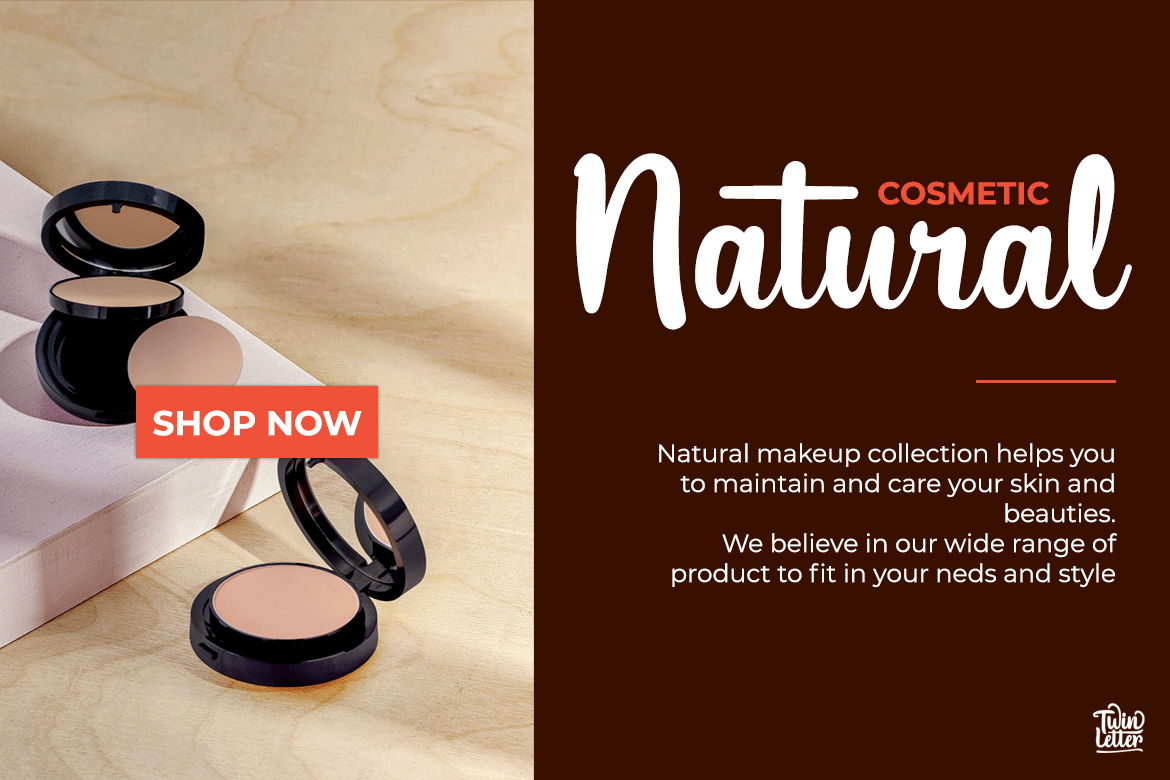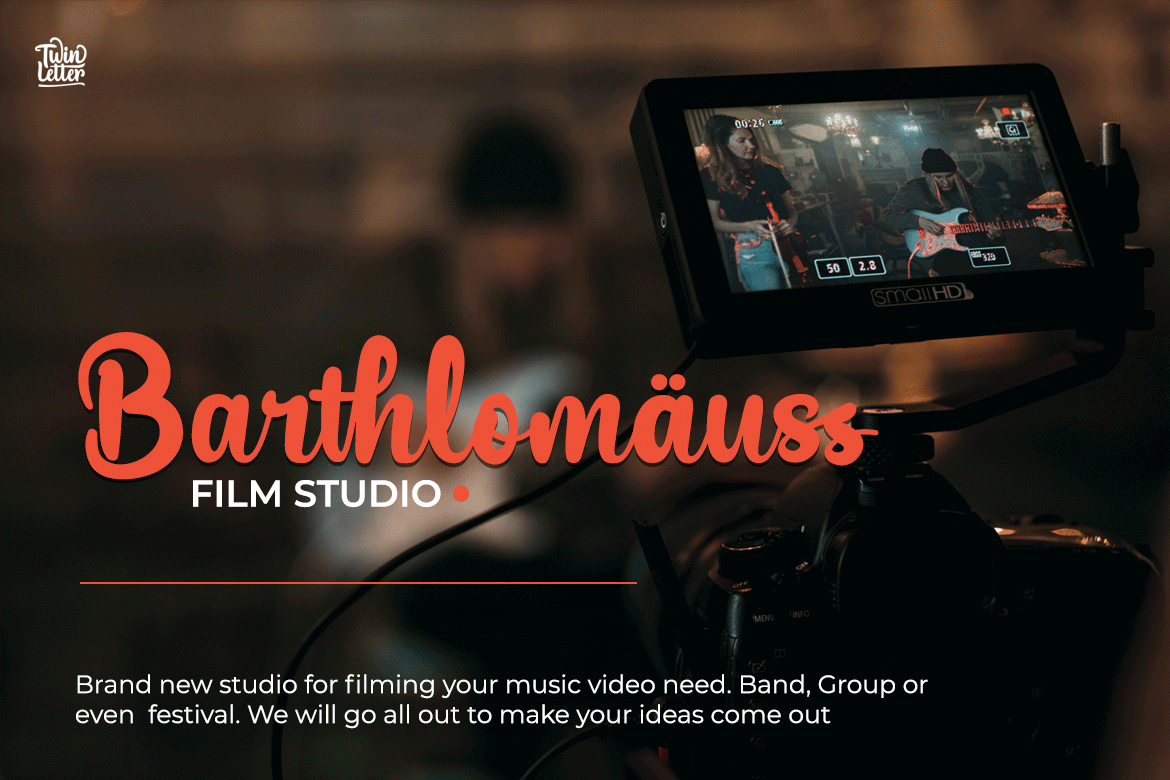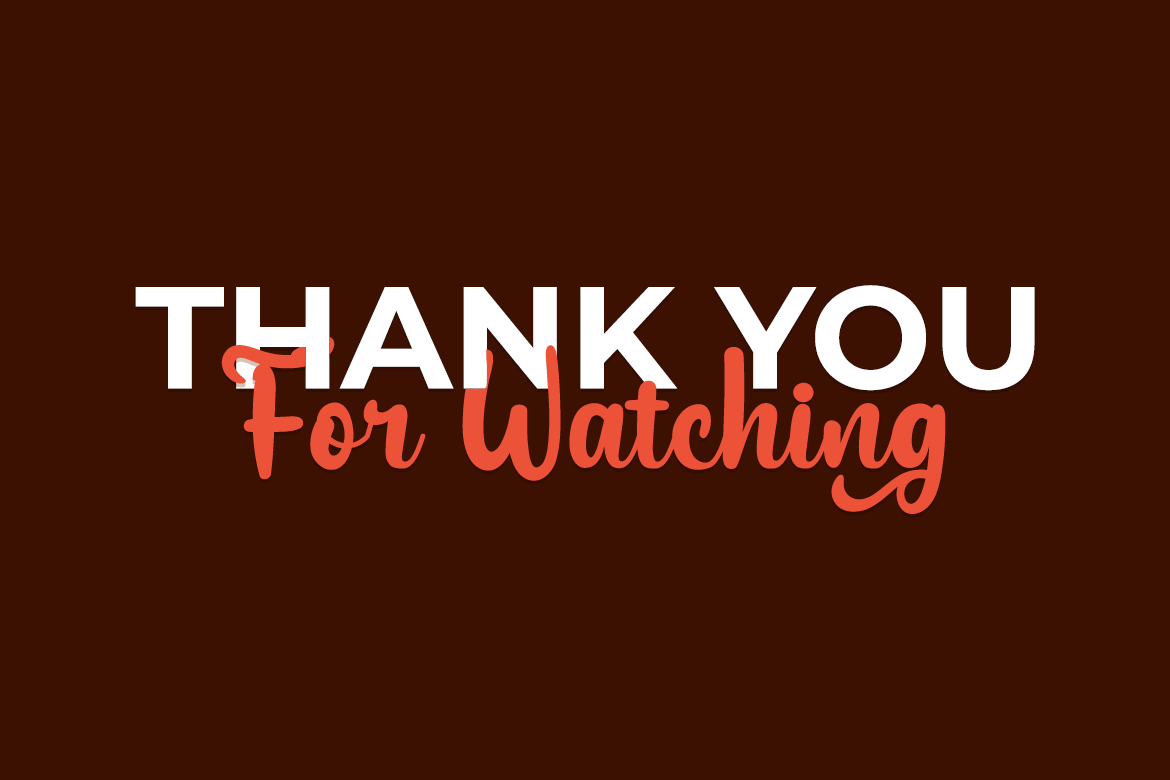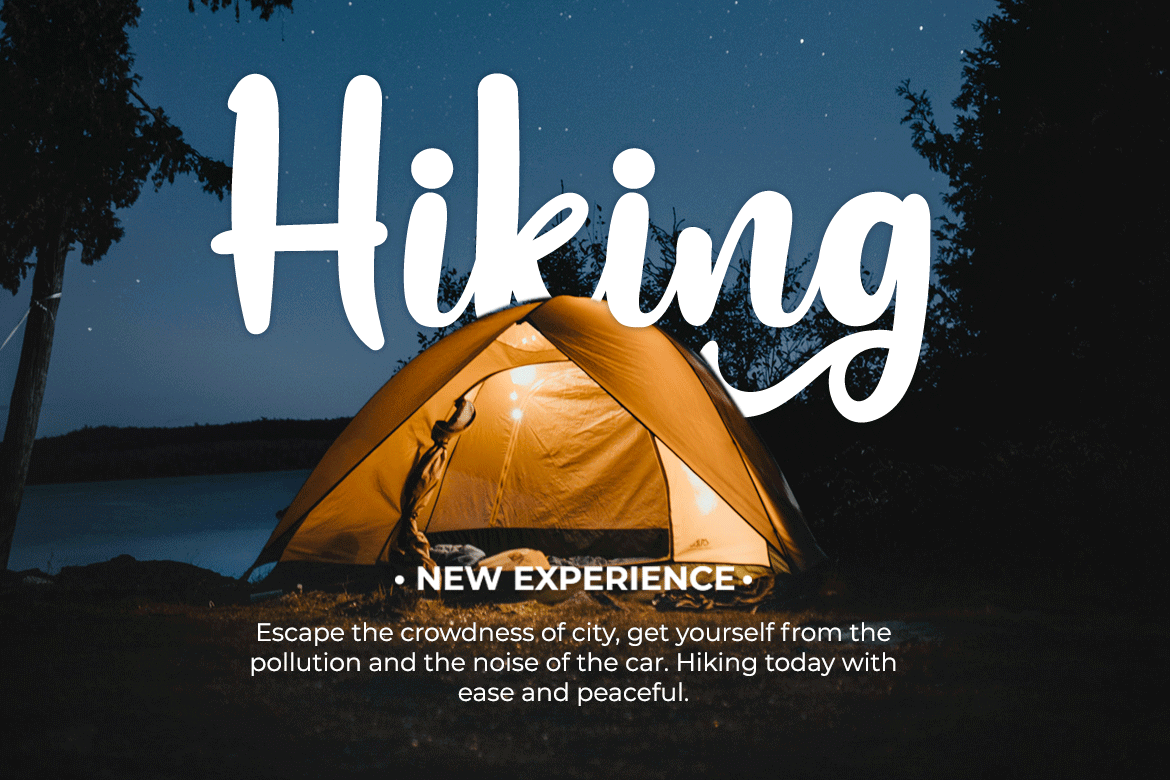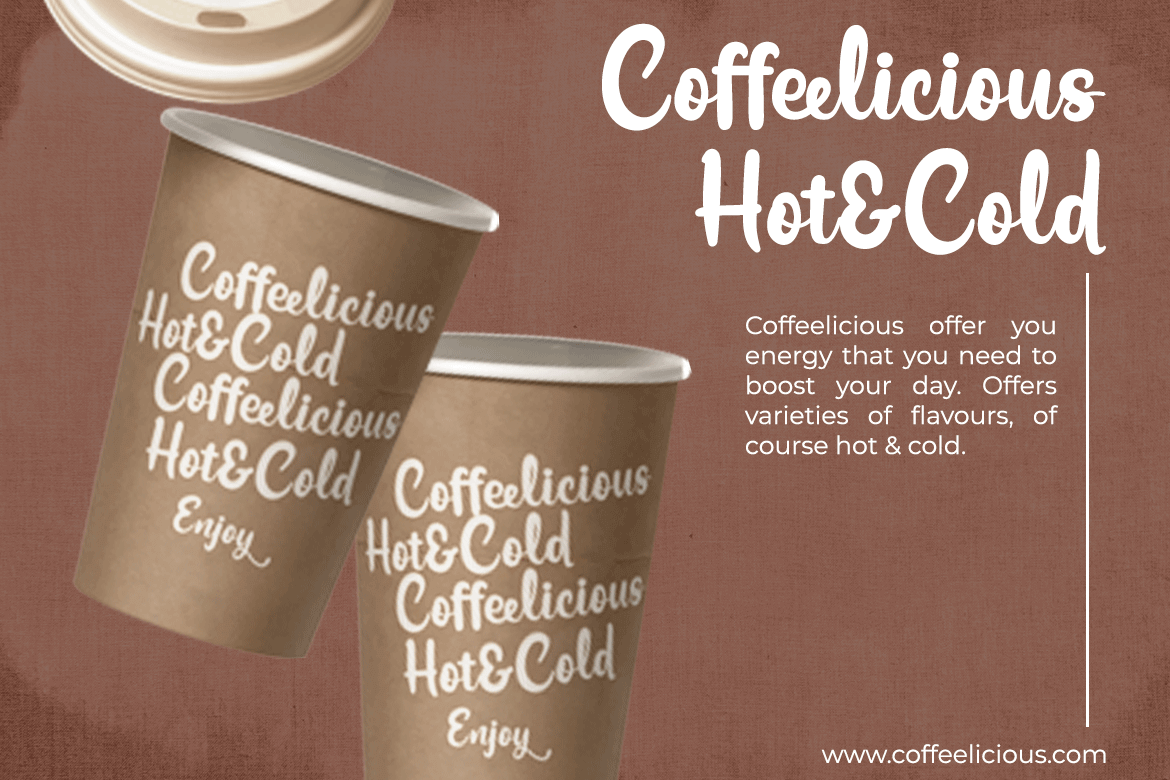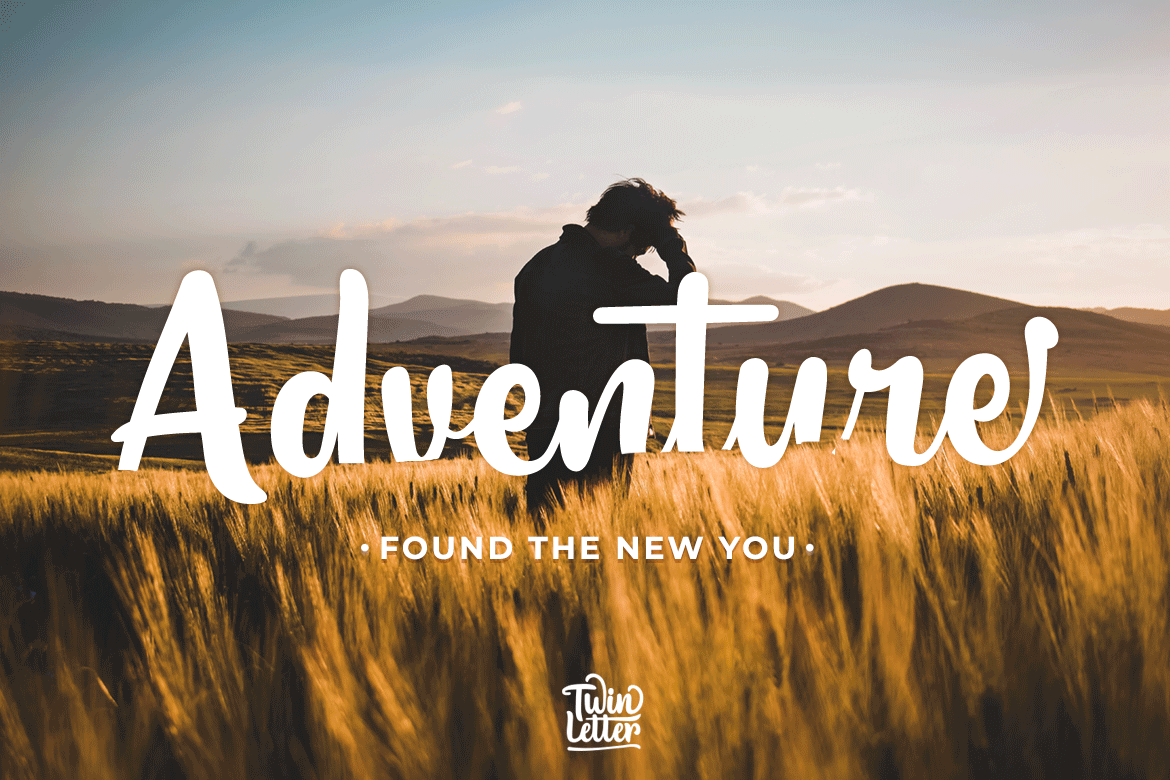
Rettyllda
Rettyllda is a script-typeface that seems like it was handmade.
This typeface has an exquisite, simple, lovely blend and harmony between letters, making it ideal for your particular project.
Yes, as you can see, the ligature that gives this Rettyllda font its beauty and sensuality may assure beauty and sexiness in your creative project works.
Not only that, but this font has a genuine handwritten feel to it, which has been developed to create a portion and composition that matches your demands. As a result, this typeface is appropriate for craft projects, children’s writing, adventure posters, food banner titles, wedding invitations, product packaging logos, quotations, social networking page covers, and furniture banners, headlines, book covers, and much more.